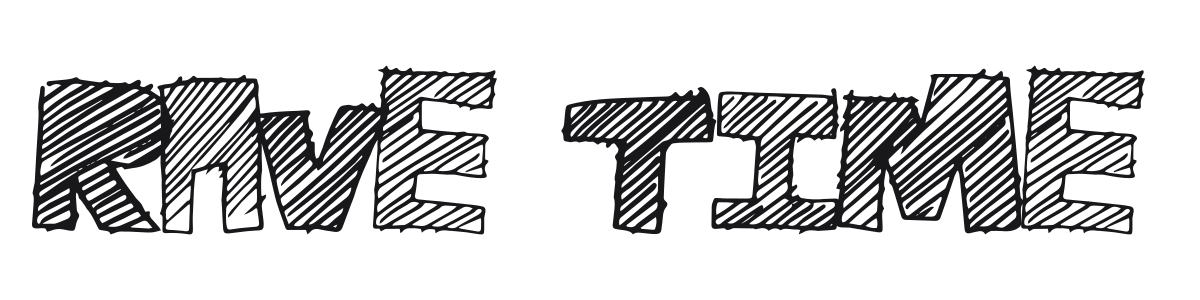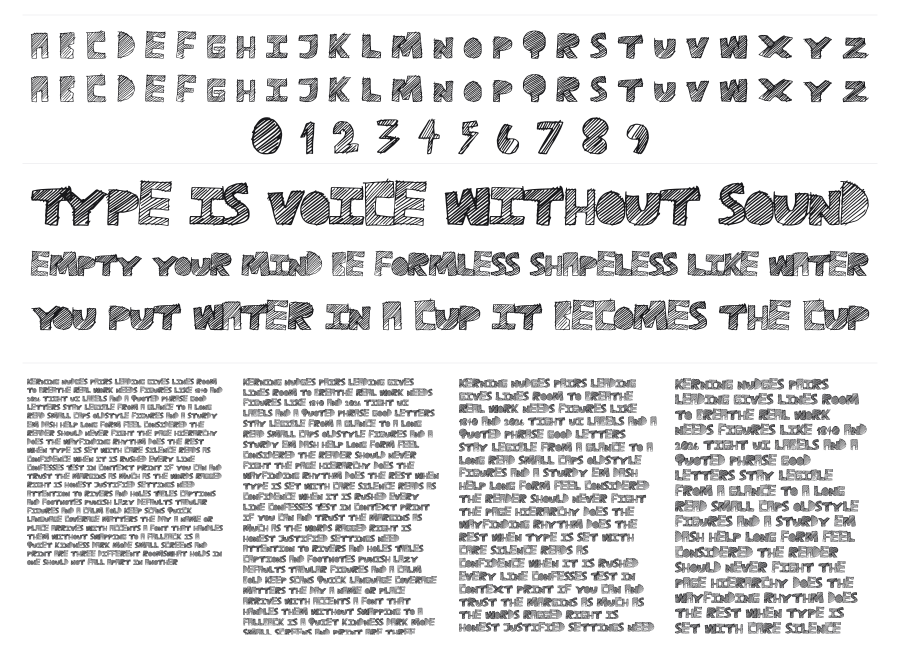
Rave Time
Rave Time is a bold sketchy display font where every letter is filled with dense hand-drawn cross-hatching, as if scrawled with a pen and then obsessively shaded. The irregular baseline and varying character heights add to the restless, DIY energy. It reads as raw and expressive rather than polished, making it a strong choice for music posters, fanzines, or any project that needs a handmade feel.